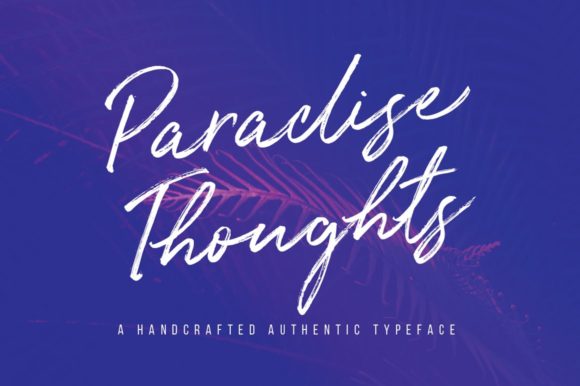
Paradise Thoughts Font
Immerse yourself in the enchanting realm of Paradise Thoughts, a captivating script font that weaves an intricate dance between lightness and boldness, leaving an indelible mark on your designs.
At first glance, Paradise Thoughts beguiles with its delicate strokes, reminiscent of a whisper carried by a gentle breeze. Its flowing curves and intricate flourishes evoke a sense of airiness and grace, like feathers gently dancing in the sky.
But beneath this delicate facade lies a hidden depth, a quiet boldness that lends Paradise Thoughts an air of quiet confidence. Its thick, assertive strokes lend a touch of strength and stability, ensuring that your message will resonate with clarity and impact.
Paradise Thoughts is an expressive and versatile font, adapting seamlessly to a wide range of design aesthetics. Whether you seek to craft heartfelt invitations, whimsical branding, or captivating social media posts, Paradise Thoughts has the versatility to elevate your creations with effortless style.
Step into the enchanting world of Paradise Thoughts and experience the magic of a font that speaks volumes through its silent strokes. Let its lighthearted charm and bold spirit inspire your designs, captivating your audience with its timeless elegance.